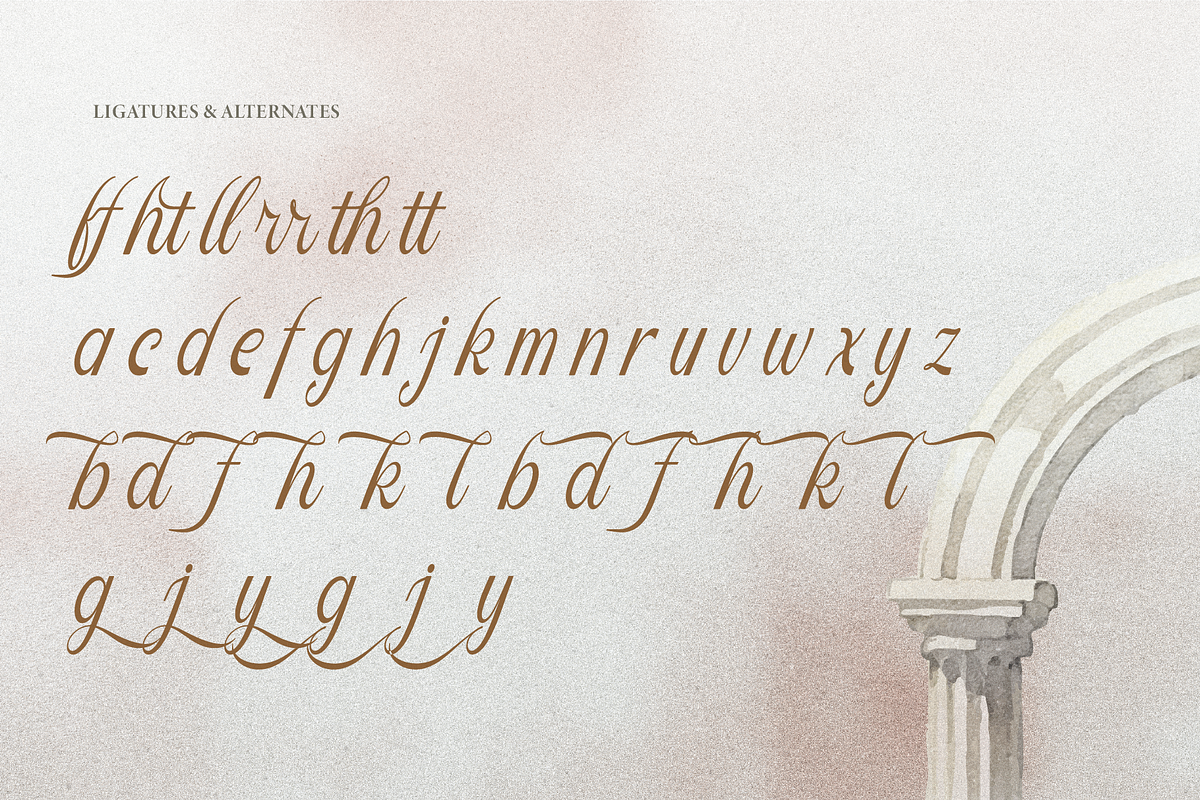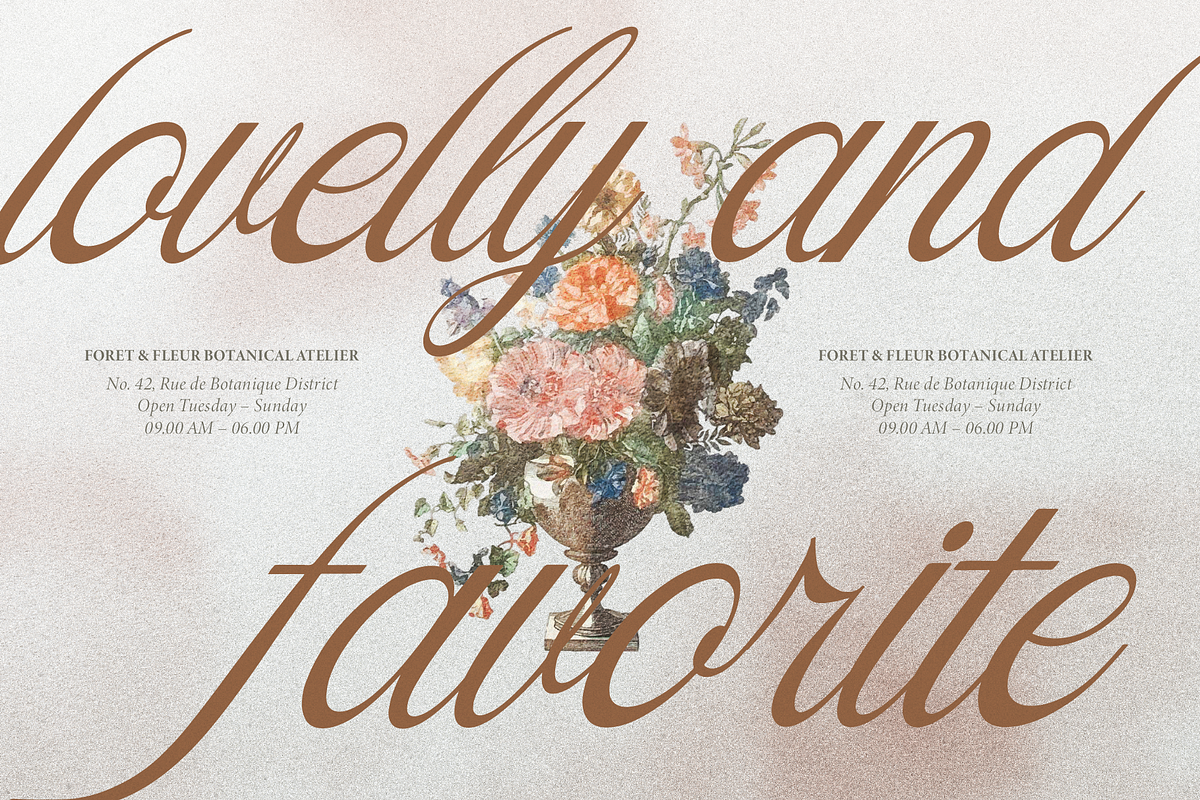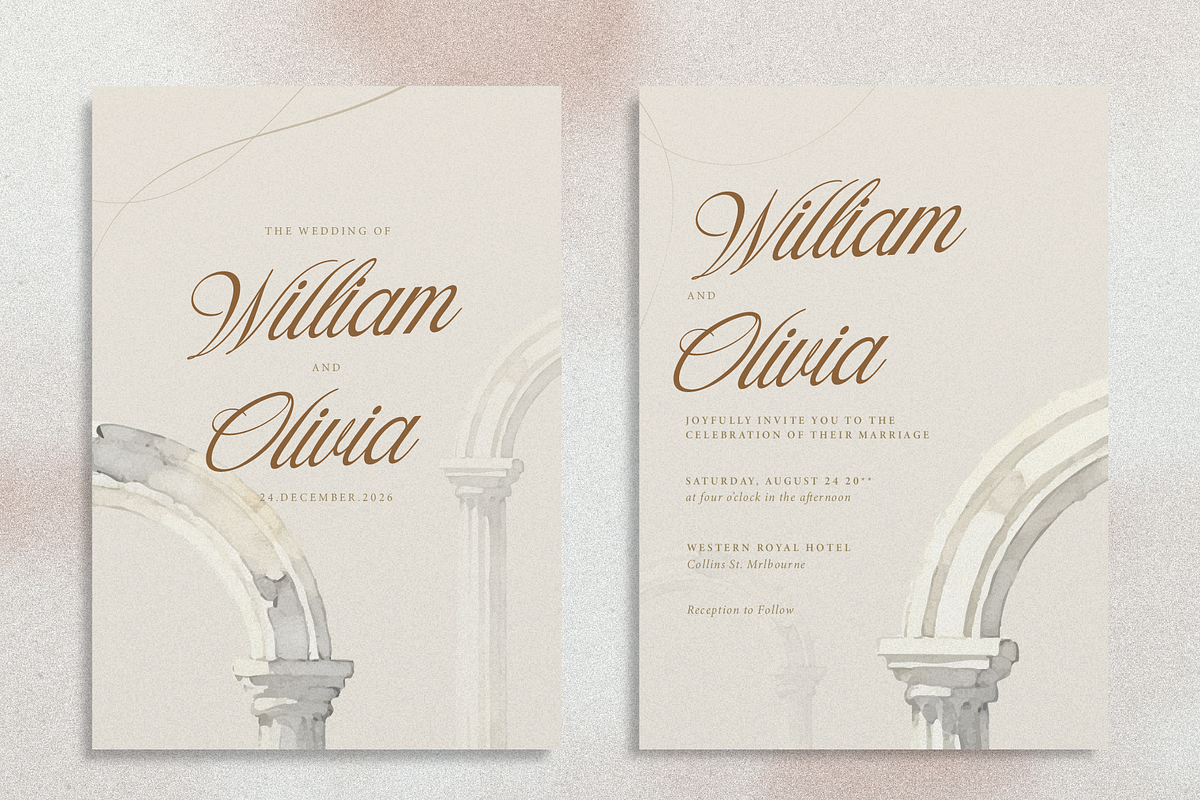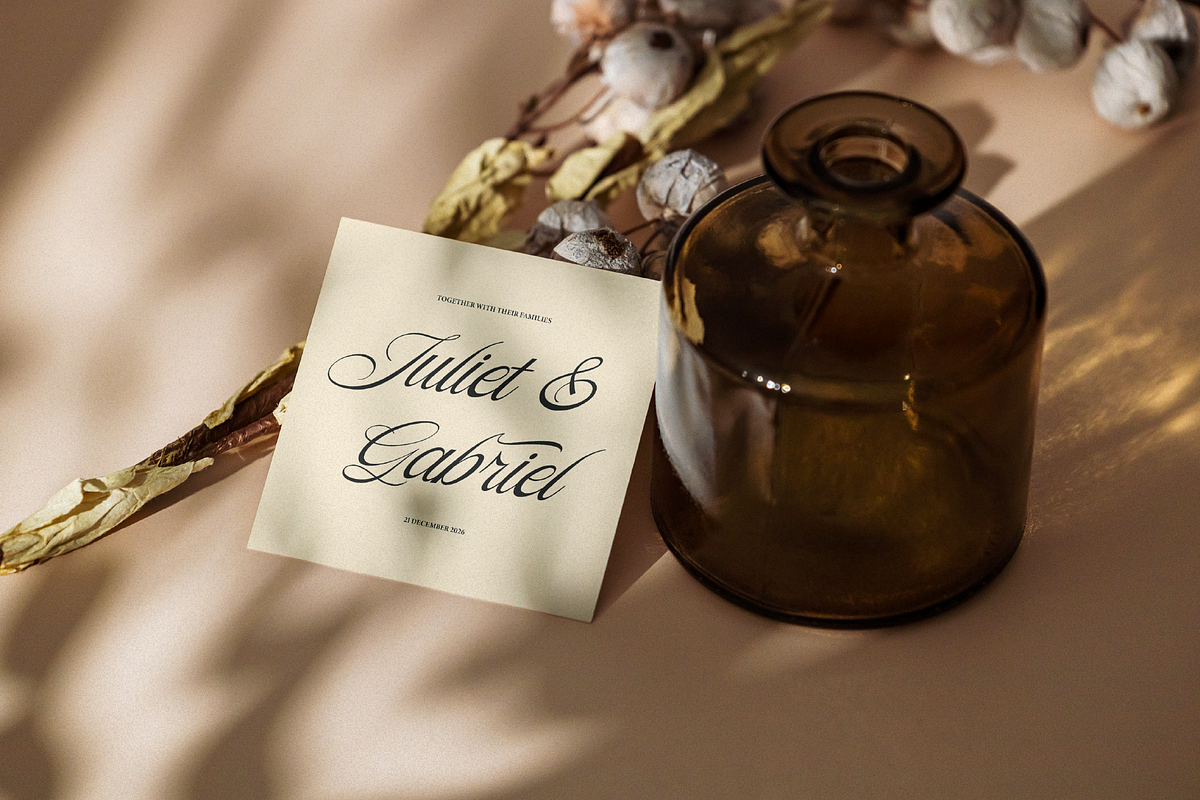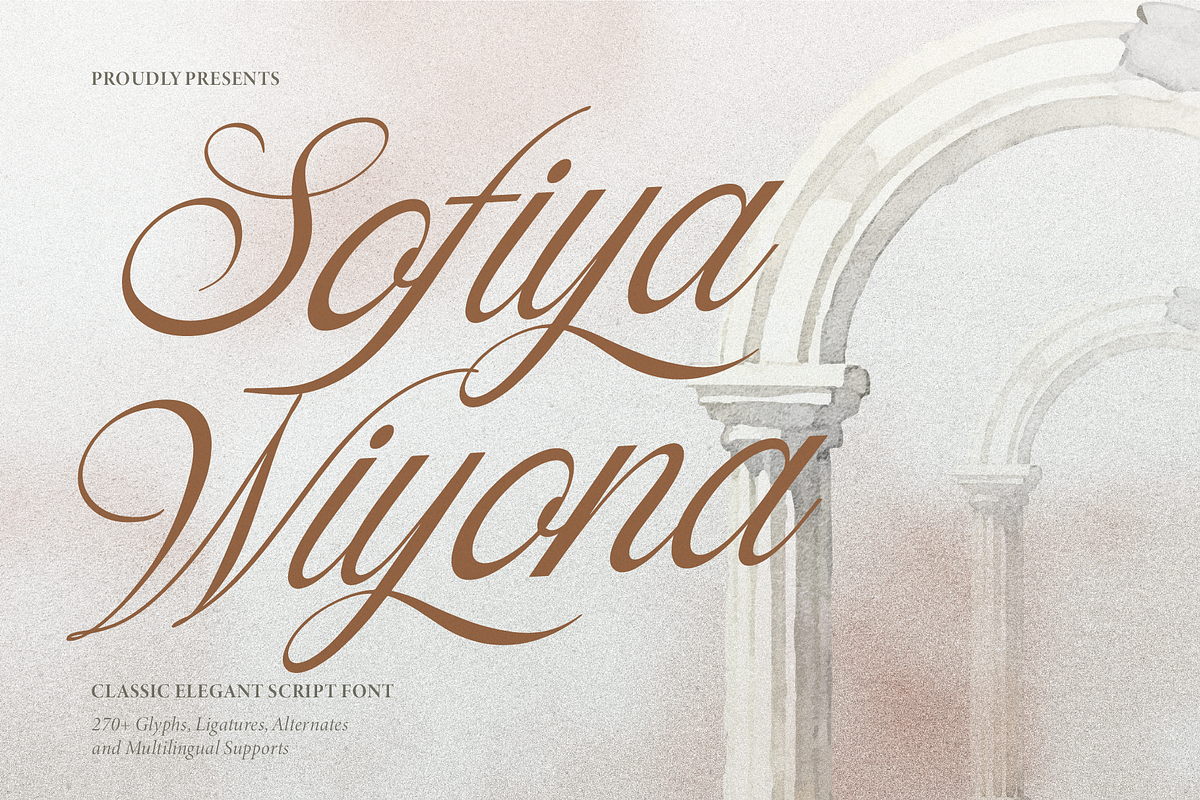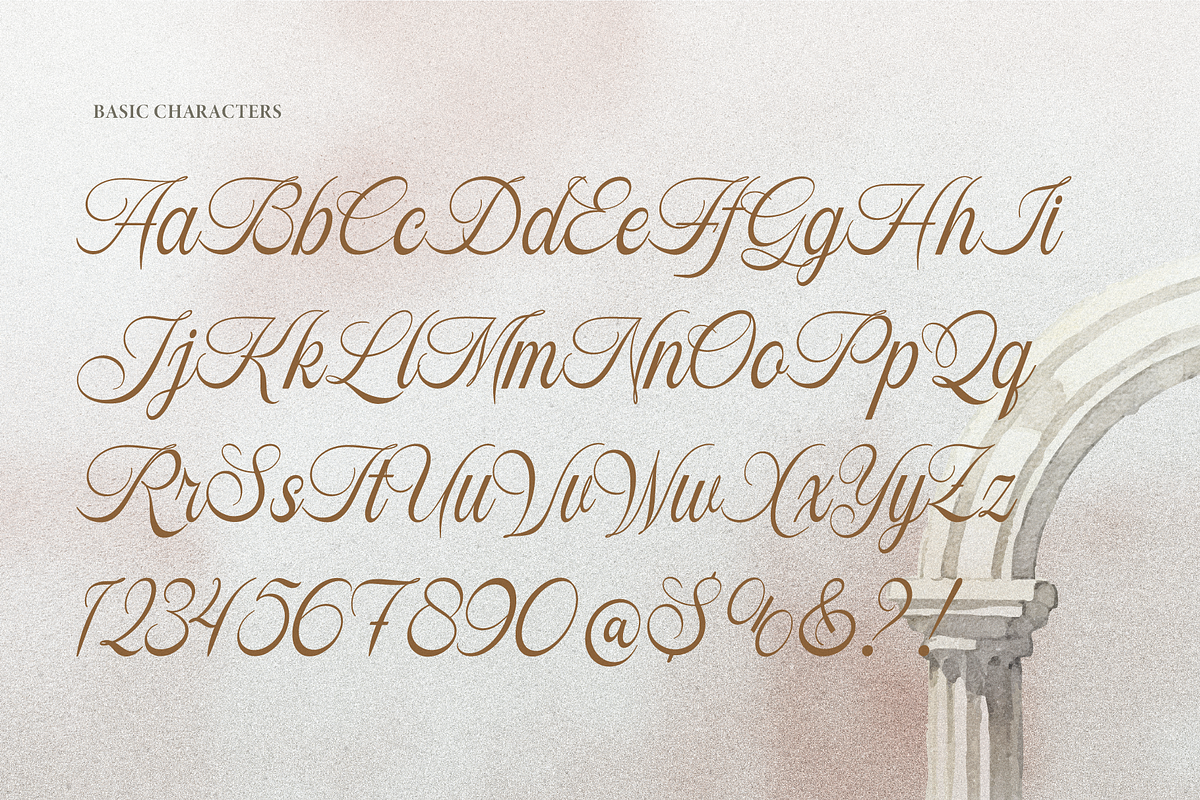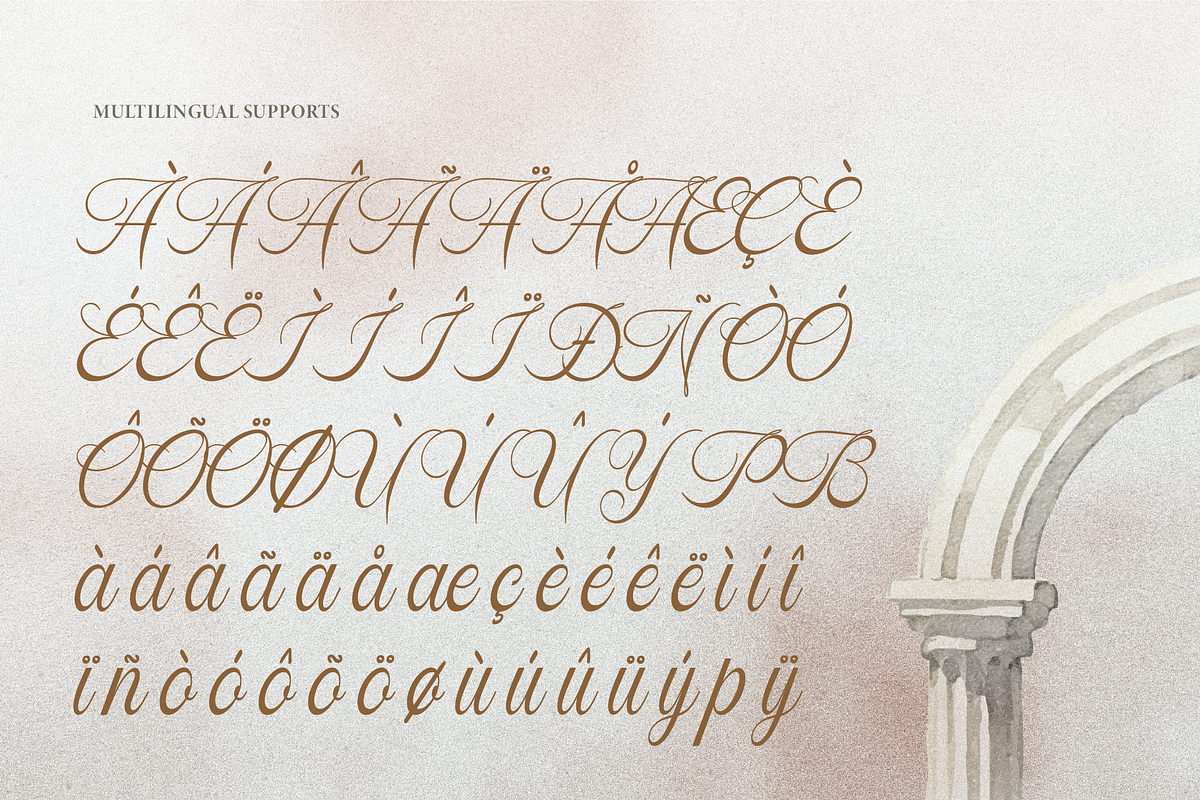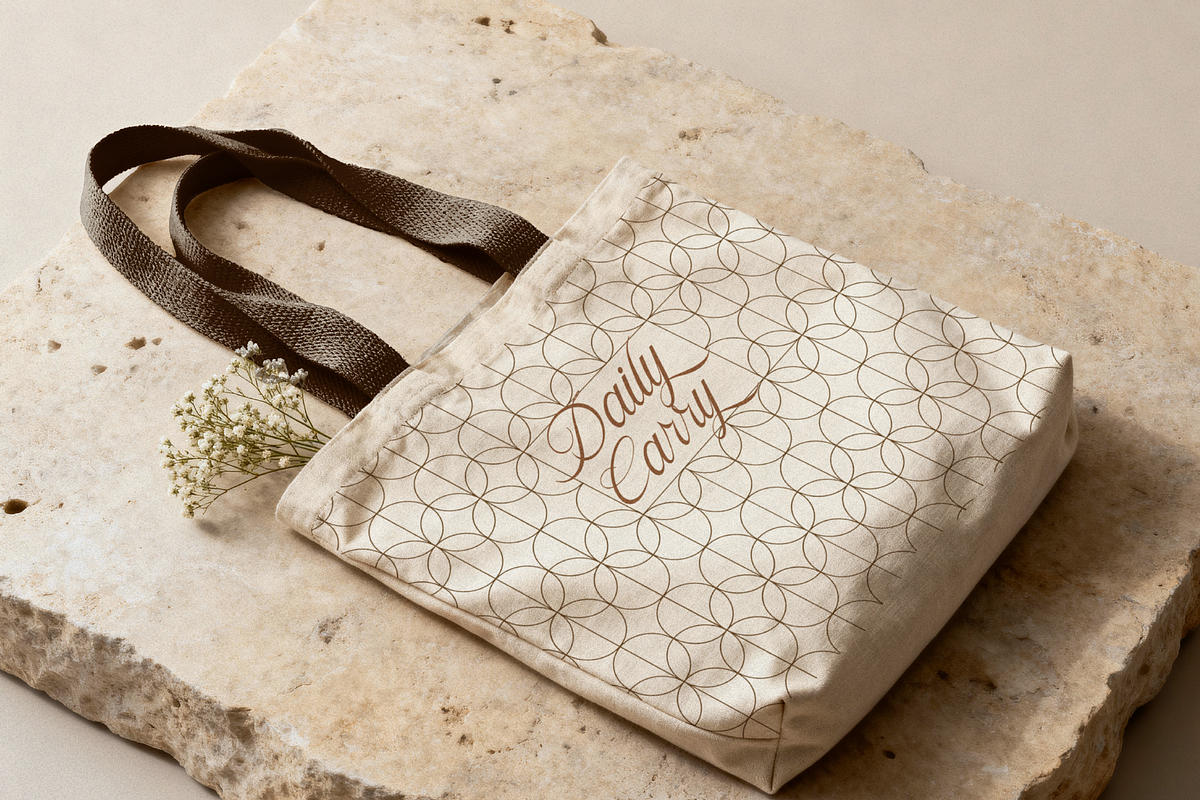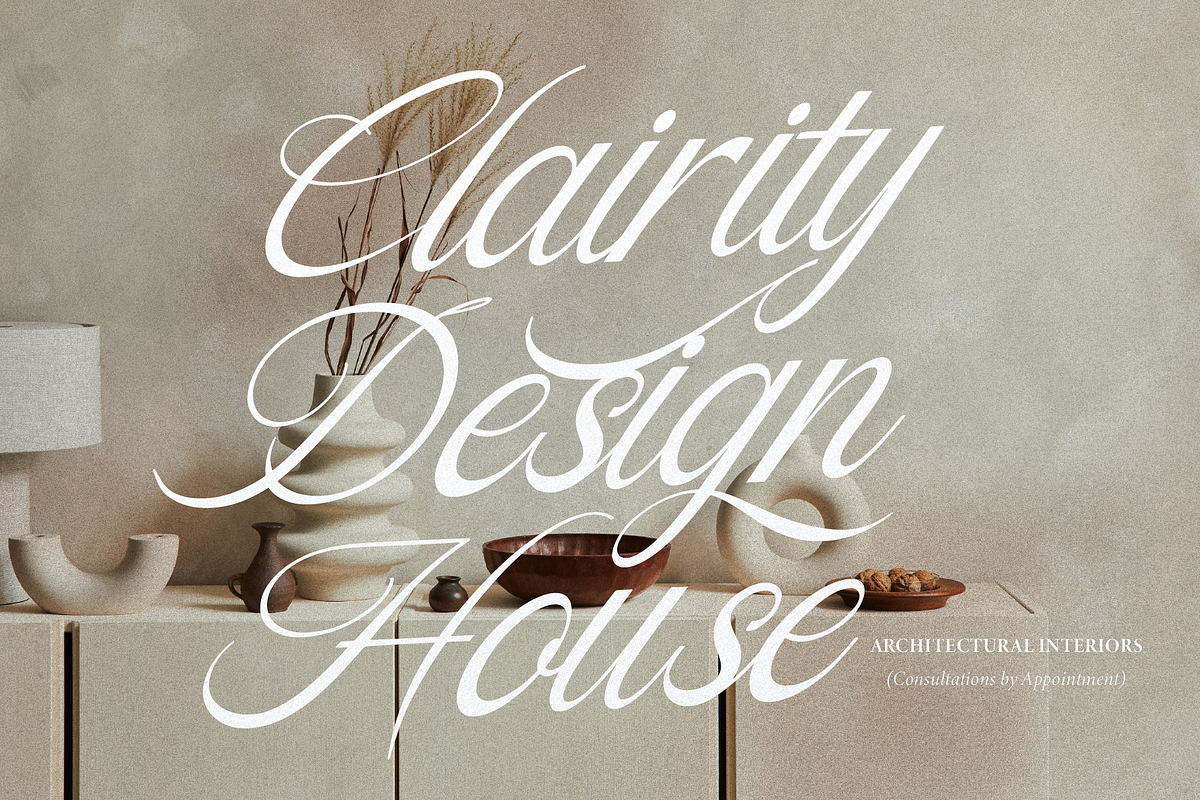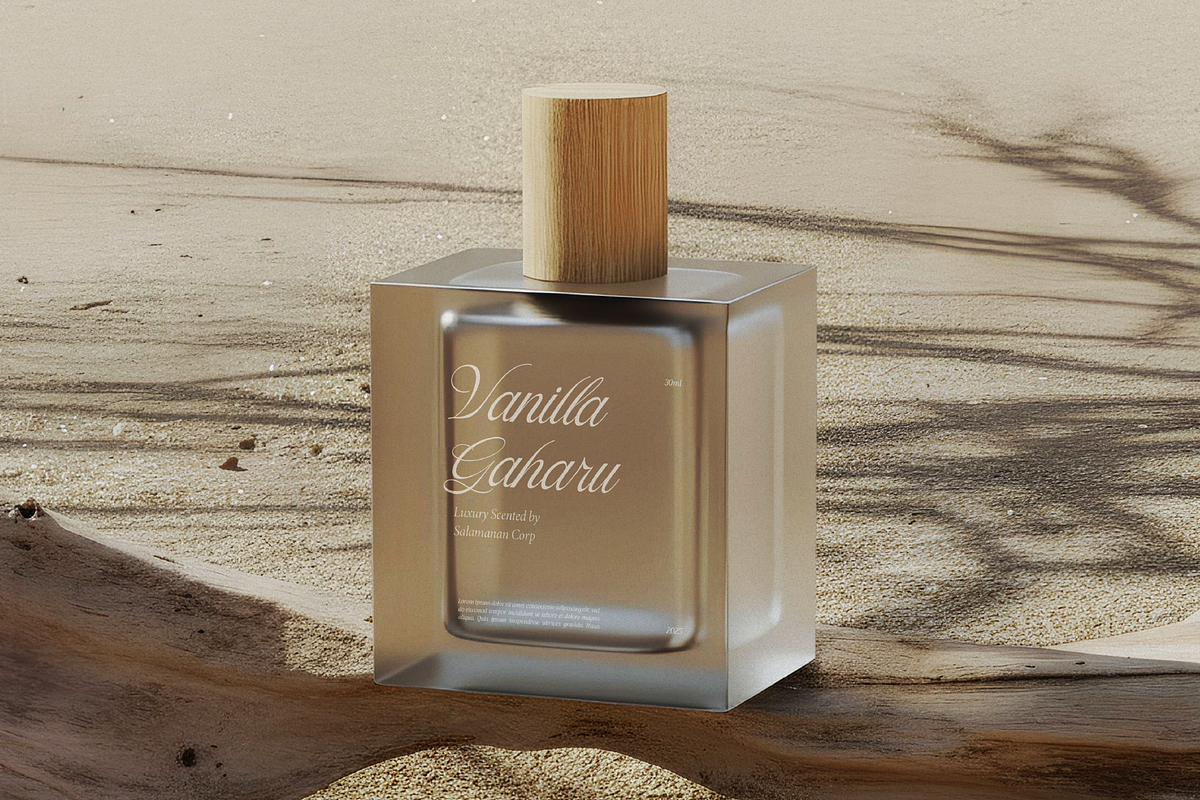
Sofiya Wiyona Classic Elegant Script
Sofiya Wiyona | Classic Elegant Script, from Gracetypestudio, suitable for any projects such as: logos, branding projects, homeware designs, product packaging, mugs, quotes, posters, shopping bags, t-shirts, book covers, name card, invitation cards, greeting cards, label, photography, watermark, special events, and all your other lovely projects that need a Script Font taste.
Standard glyphs
Alternate and Ligature
Fonts include multilingual support